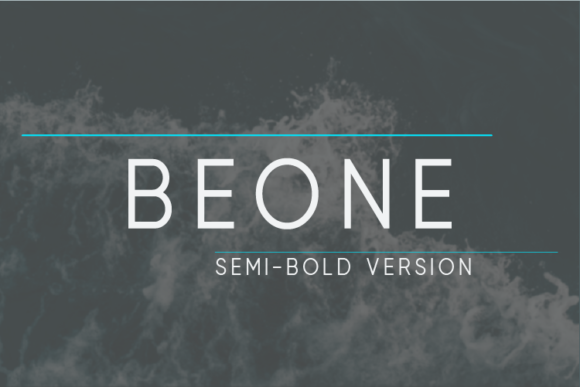
Dive into the world of contemporary design with Beone Semi-Bold, the captivating sans serif font that exudes elegance and sophistication. Inspired by the latest trends in minimalistic branding, natural cosmetic packaging, and the allure of creamy neutral shades, Beone Semi-Bold is a game-changer for designers seeking to make a lasting impression.
Beone Semi-Bold's clean lines and subtle curves create a striking visual harmony that commands attention. Its letterforms, crafted with meticulous precision, evoke a sense of understated luxury, making it the perfect choice for projects that demand a touch of class and refinement. From branding and packaging to web design and social media graphics, Beone Semi-Bold is a versatile performer that elevates your creative vision to new heights.
Let Beone Semi-Bold's modern aesthetics transport you to a realm of creative possibilities. Its enchanting allure will captivate your audience, leaving them enthralled by your designs. Experience the transformative power of Beone Semi-Bold and unlock a world of limitless creative expression.